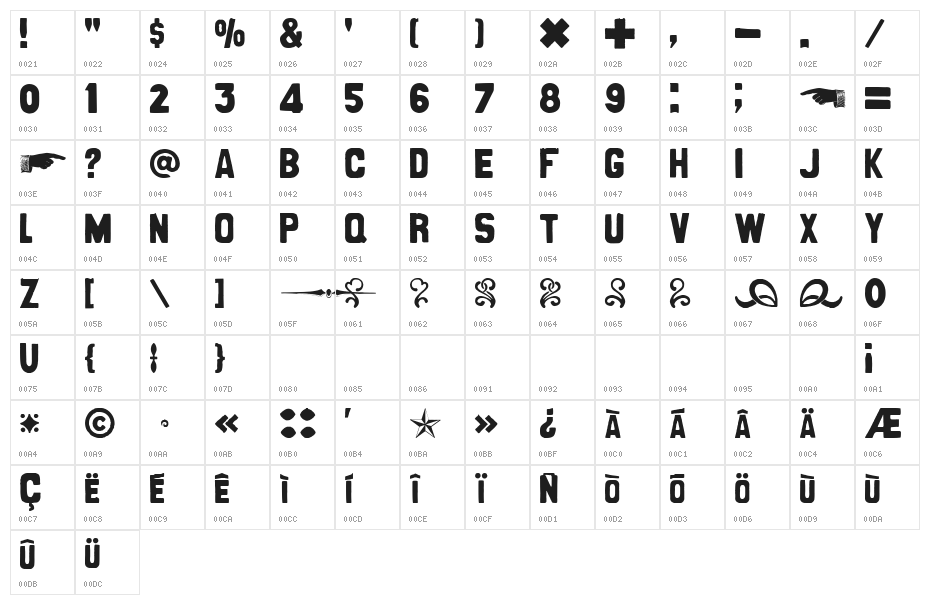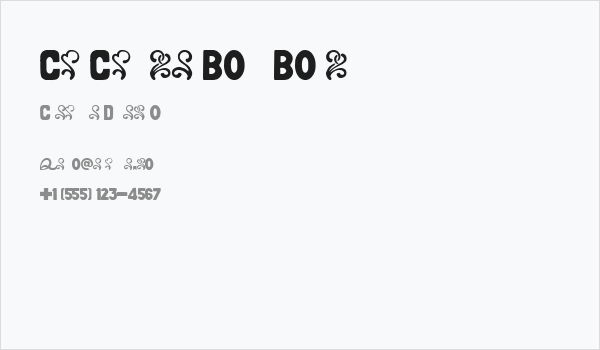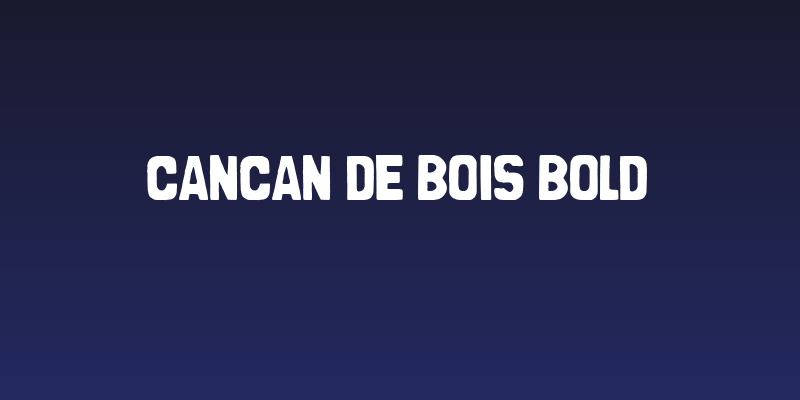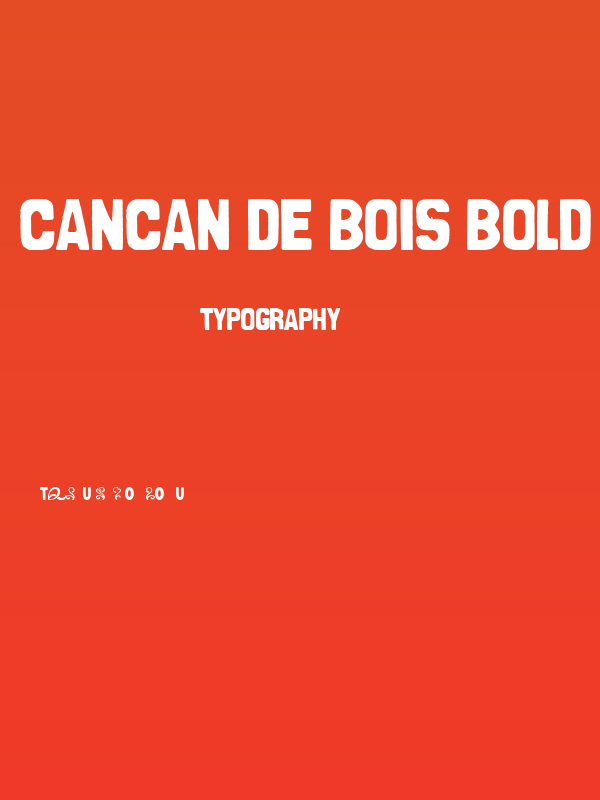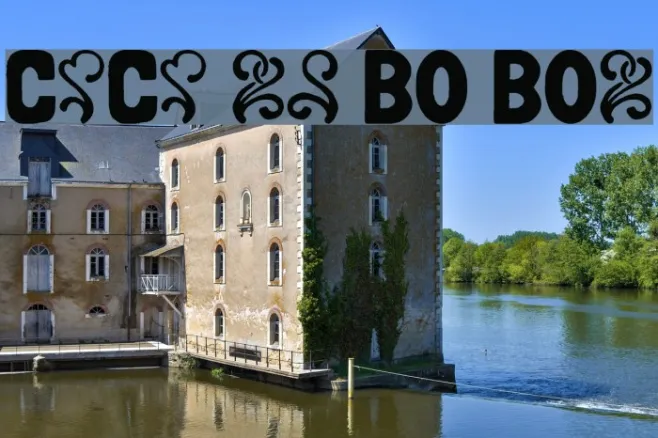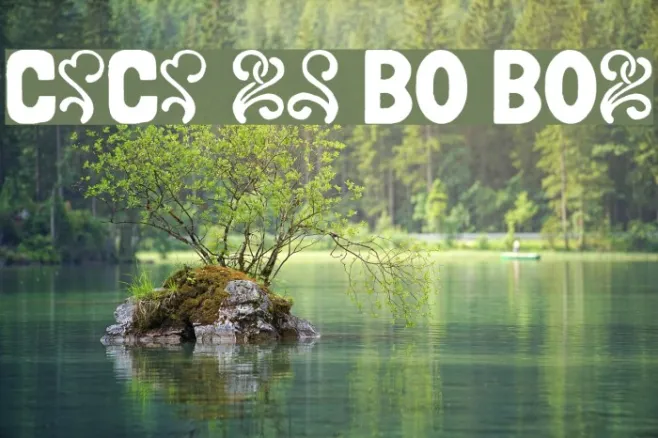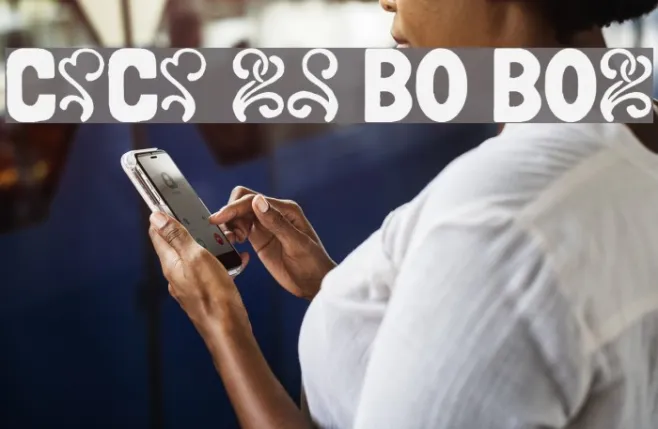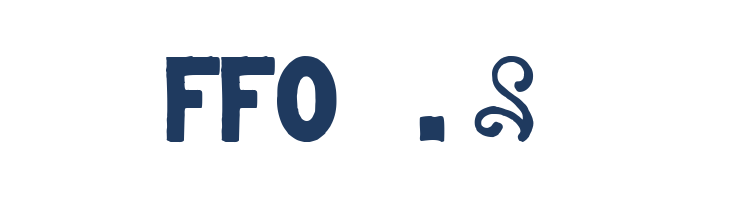
CanCan de Bois Bold Font
CanCan de Bois Bold Description
This bold and striking font features thick, blocky characters with a strong presence. The uppercase letters are robust and commanding, while the numerals maintain a consistent weight and style. The special characters are equally bold, ensuring they stand out in any design. The font's decorative elements, such as the flourishes, add a unique touch, making it suitable for eye-catching designs. Its overall appearance is reminiscent of vintage woodblock printing, giving it a classic yet timeless feel.
| Overall Style | Vintage |
| Proposed Projects | Ideal for poster designs, branding projects, and any creative work requiring a vintage or retro aesthetic. |